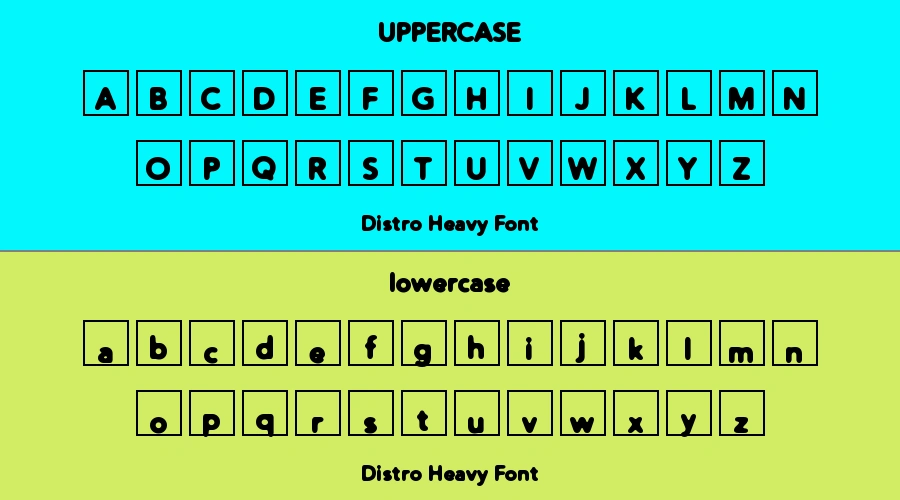
About Distro Heavy Font
Distro Heavy Font represents a sophisticated approach to type design, balancing subtle details with visual appeal. Perfect for medical texts, this font family showcases impressive originality and aesthetic excellence throughout its character set. Designers appreciate its versatility and reliability.
Designers will appreciate nuanced touches including systematic design and logotype support, adding sophistication to any project. These features become apparent in formal invitations, where performance matters most. The careful treatment of loop structure and technical tradition ensures optimal performance.